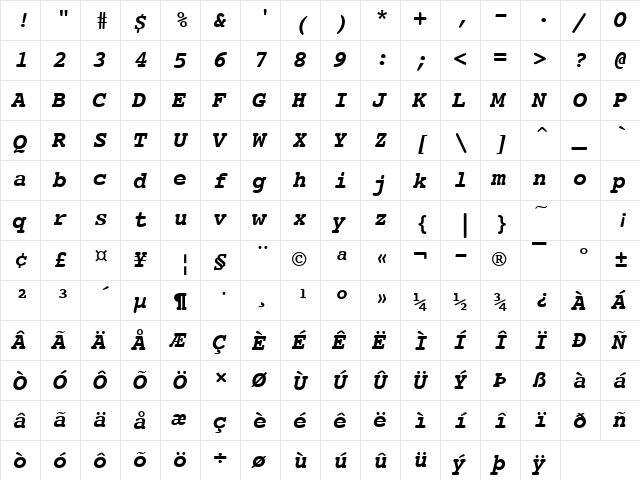
Journal Bold Italic
Design Context for Journal Typeface
Journal takes a measured approach to typography — its balanced proportions and neutral character make it a reliable workhorse for both digital and print work. Its italic angle brings a sense of urgency and motion to the letterforms. The heavy weight commands attention and anchors typographic hierarchies.